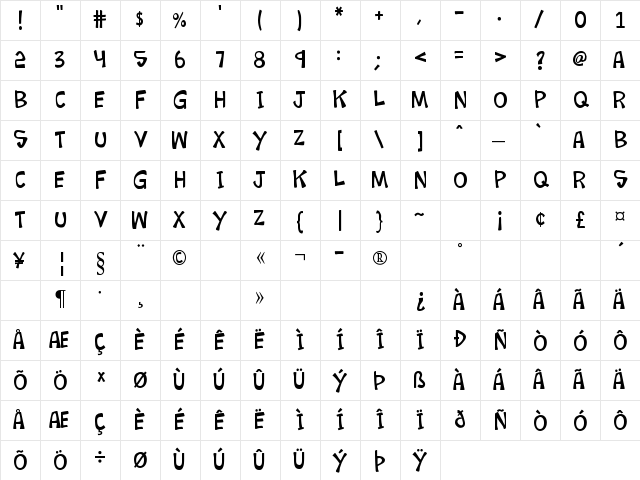
K26LoremIpsum Regular Free Font
K26LoremIpsum Regular
Complete K26LoremIpsum Regular glyph index. Displaying only characters natively supported by K26LoremIpsum Regular font.
Design Context for K26LoremIpsum
K26LoremIpsum is a composed and adaptable typeface that performs quietly and consistently across a wide range of design contexts.
Pro Tip: Use K26LoremIpsum in both headline and body roles to test its range before committing to a single application.